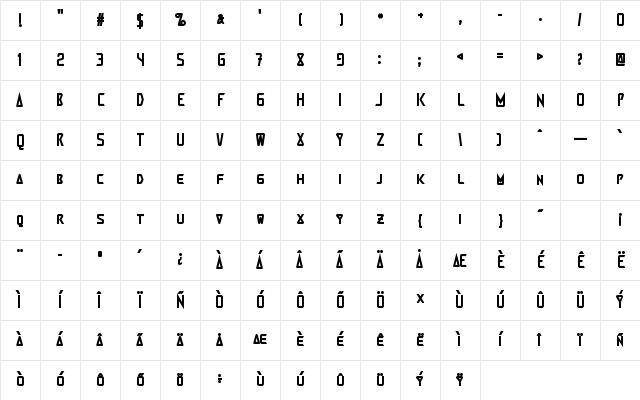
Martienso Bold Free Font
Martienso Bold
Foundry: xerographer.com
Designer: Max Infeld
Martienso Family
Design Context for Martienso
Martienso is a composed and adaptable typeface that performs quietly and consistently across a wide range of design contexts. Its bold stroke weight gives it real presence on the page.